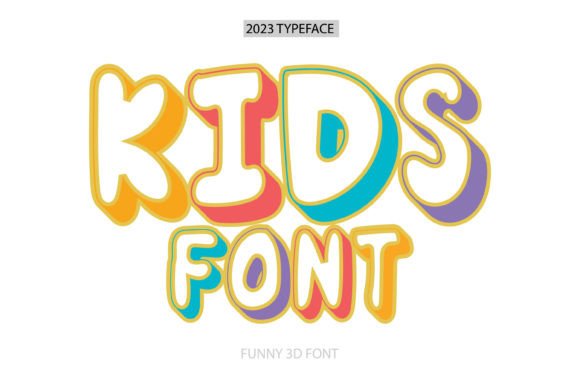
Unleash Your Creativity with Kids Font
Do you ever get that spark of inspiration when you’re sipping your morning coffee, and suddenly, a brilliant idea pops into your head? That’s exactly what happened to me last week when I stumbled upon the perfect font to elevate my crafty projects – Kids Font! Its fun, quirky, and playful vibe instantly caught my attention, and I knew I had to share it with fellow designers.
Kids Font is an all-caps font designed to add a touch of whimsy and personality to your designs. Whether you’re creating cards, promotional ads, social media posts, or product packaging, Kids Font is sure to bring a smile to your audience’s faces. As a designer, you’ll love incorporating this font into your projects, as it’s versatile, easy to use, and guaranteed to make your work stand out.
- Unique Characteristics: Kids Font is designed with child-friendly features, including bold and playful letterforms, making it an ideal choice for children’s books, educational materials, and other youth-focused content.
- Style Variations: Kids Font offers multiple style variations, including Regular, Bold, Italic, and Bold Italic, allowing users to customize the look and feel of their text to suit their needs.
Kids Font Review
As a designer, I was excited to dive into the Kids Font and see how it stacks up. Here’s my honest review.
The Kids Font is designed specifically for children’s content, and it shows. The font is playful, colorful, and fun to read. The letters are rounded and smooth, making it perfect for headings and titles. I also appreciate the variety of weights and styles, which makes it easy to create visually appealing and consistent designs.
- Playful and colorful design
- Rounded and smooth letters
- Variety of weights and styles
While the Kids Font is great for children’s content, it may not be the best choice for more serious or formal designs. The font can feel a bit too playful and cartoonish for adult-oriented content. Additionally, some of the weights and styles can feel a bit inconsistent, which may require some extra tweaking to get right.
- May not be suitable for formal or adult-oriented content
- Some weights and styles can feel inconsistent
Overall, I think the Kids Font is a great choice for children’s content, but it may not be the best fit for every design project. With a bit of caution and careful selection, however, it can be a valuable addition to any designer’s toolkit.
Tips for Getting the Most Out of “Kids Font”
Use “Kids Font” to create playful and engaging designs that appeal to children.
Combine “Kids Font” with bright colors and fun graphics to create a visually appealing design.
Use “Kids Font” for:
- Children’s book covers and illustrations
- Education and learning materials
Alternatives to Kids Font for Designers
Comic Sans MS is a sans-serif font that was initially designed to resemble handwriting. It’s often used for informal or casual designs, such as children’s books, newsletters, or social media posts. Compared to Kids Font, Comic Sans MS has a more casual and playful feel, but it can also come across as unprofessional in some contexts.
Pacifico is a modern script font that’s often used for titles, headings, or body text in creative designs. It has a relaxed, beachy vibe that works well for summer-themed projects or brands that want to convey a sense of fun and adventure. Unlike Kids Font, Pacifico is more elegant and sophisticated, making it suitable for a wider range of design applications.